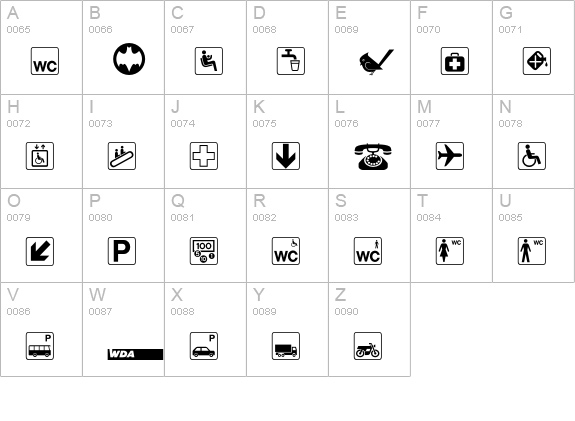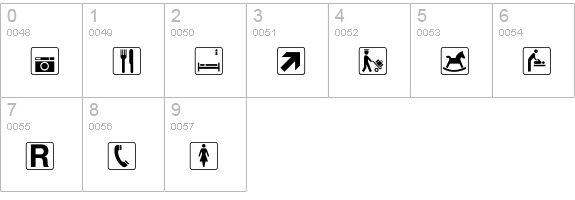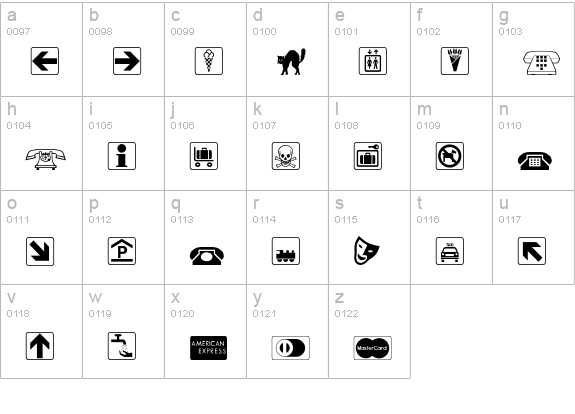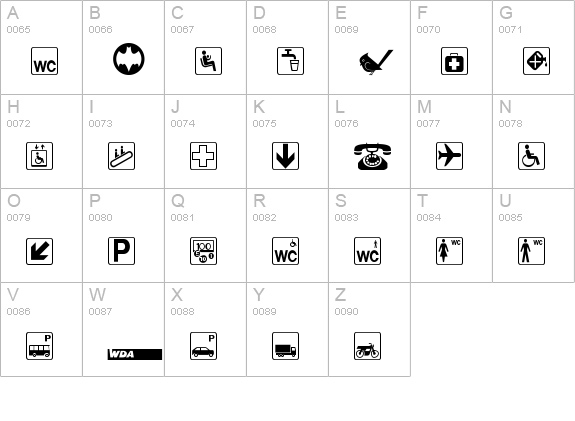
LogosPiFont Font Details
LogosPiFont is a modern and stylish typeface that strikes the perfect balance between professionalism and creativity. This versatile font features clean lines and elegant curves, making it ideal for a wide range of design projects. Whether you're creating a logo, branding materials, or promotional materials, LogosPiFont is sure to make a lasting impression. What's more, LogosPiFont is completely free to download at FontsMarket.com. This means you can access this high-quality font without having to worry about any cost barriers. So go ahead and elevate your designs with LogosPiFont today!